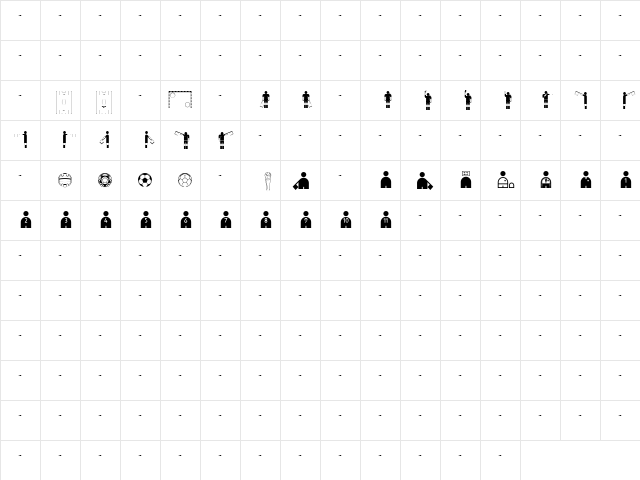
Trivia-Pict Regular
Design Context for Trivia-Pict Typeface
Trivia-Pict is a composed and adaptable typeface that performs quietly and consistently across a wide range of design contexts.